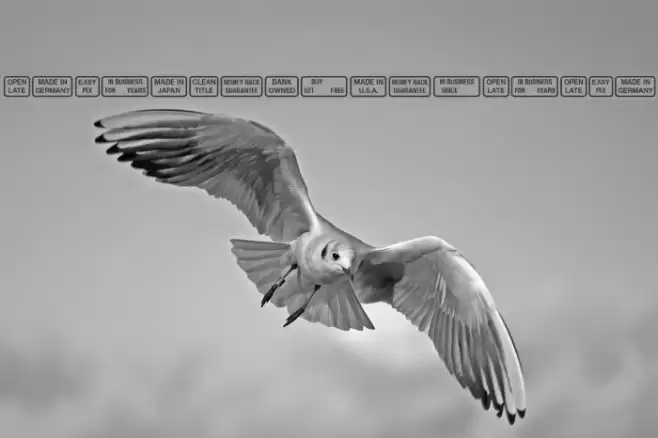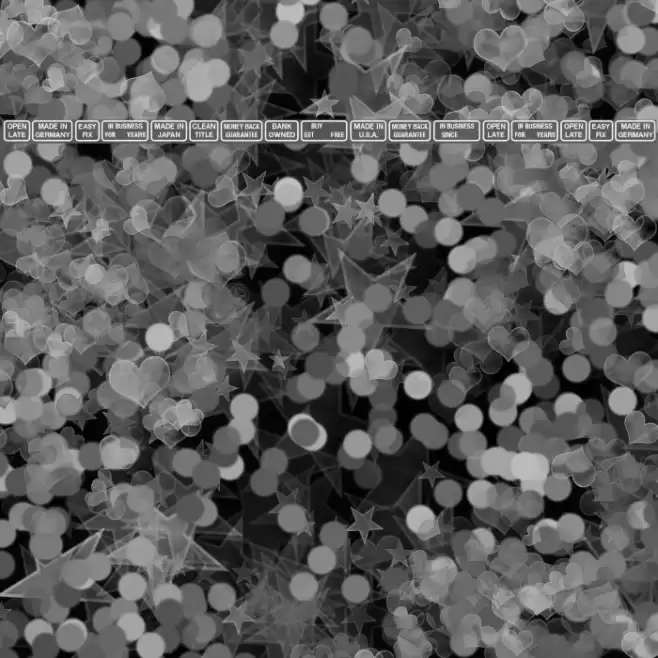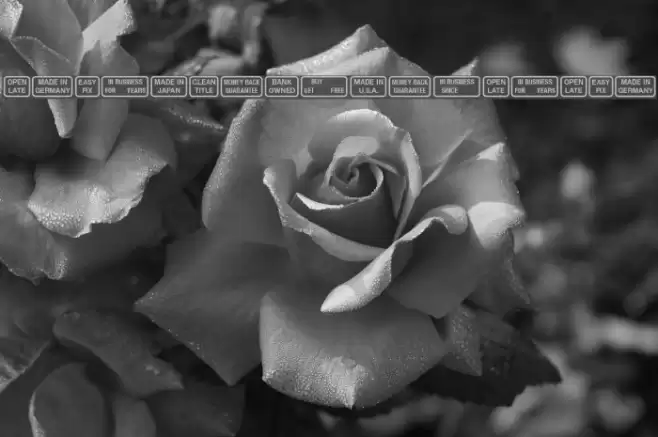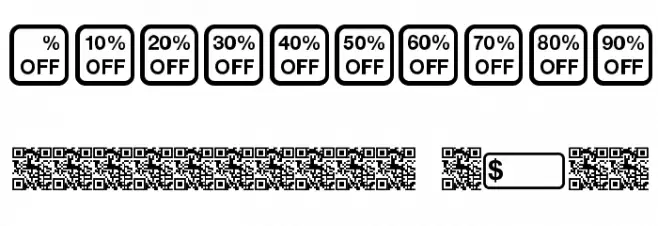
SignsforAdvertising Font
SignsforAdvertising Description
A clean, geometric sans-serif font with rounded corners, uniform stroke width, and high legibility. The characters are evenly spaced, with a modern and neutral appearance suitable for signage and advertising. The font maintains clarity at various sizes and features simple, unembellished letterforms.
Modern, rounded sans-serif font ideal for clear signage from Uncategorized fonts.
- Proposed Projects: Retail signage, promotional materials, price tags, labels, advertising banners, informational signs.
- Overall Style: Modern, Functional
- Use Case: Signage, Labels, Advertising, Price Tags